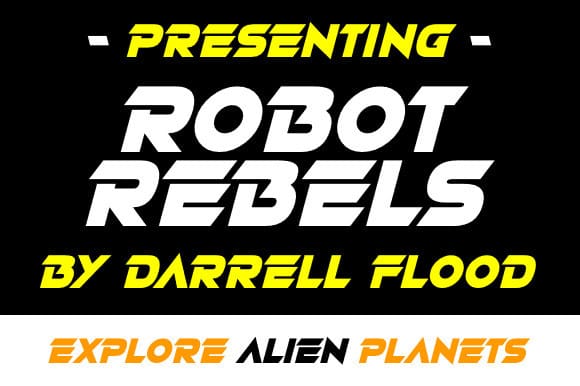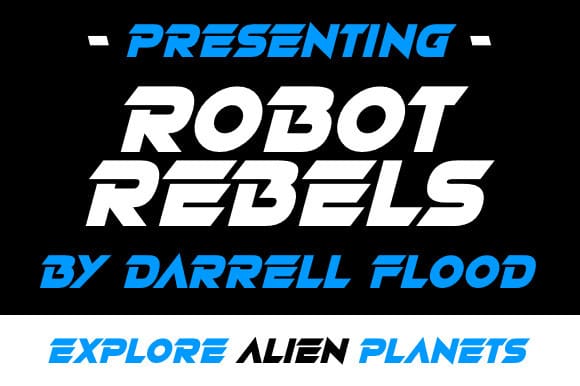
Robot Rebels Font
Robot Rebels Font is a modern scifi font combining smooth curves and sharp edges. Perfect for space exploration, alien encounters, techno music and high tech themes!